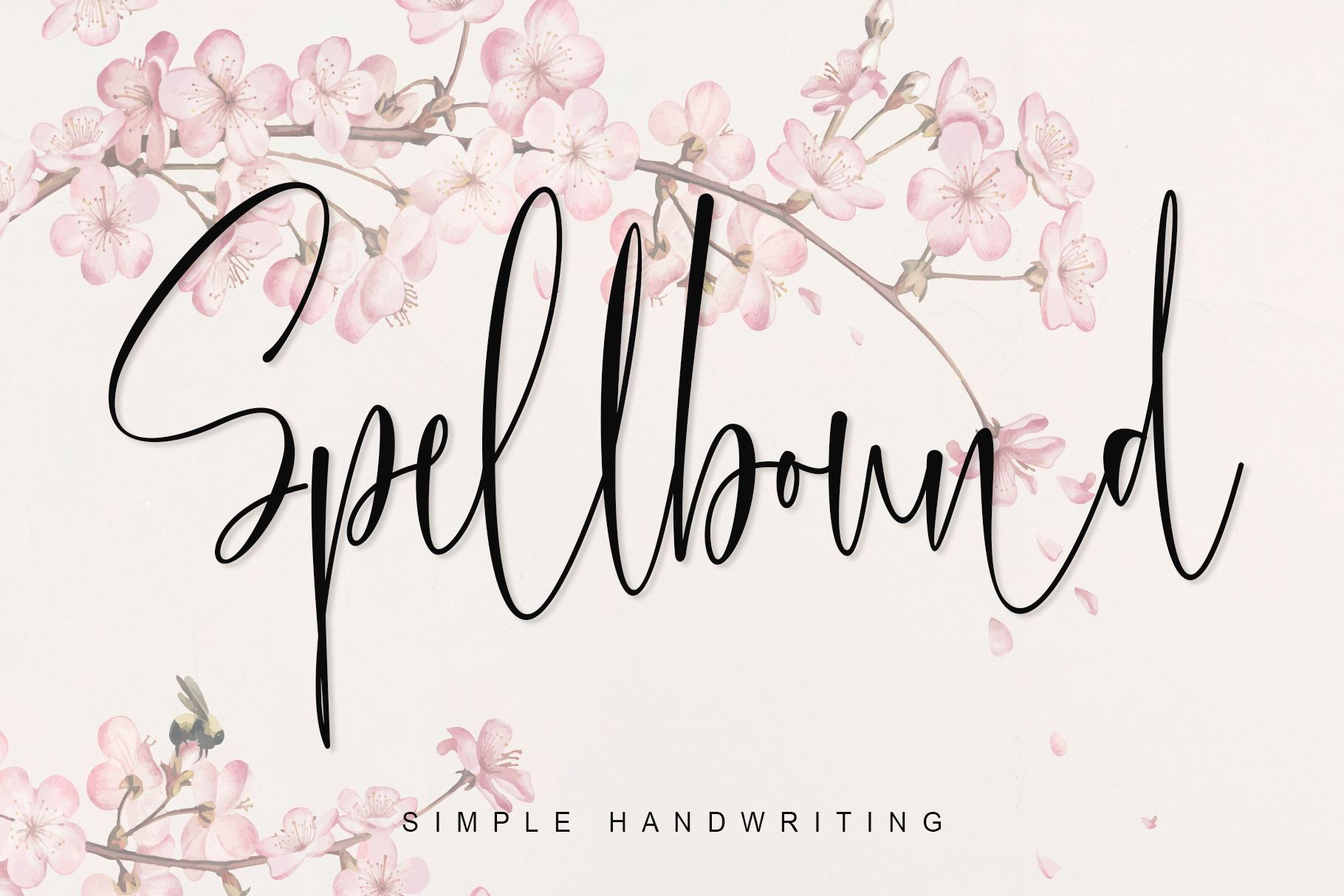
Spellbound Font Description
Spellbound is a beautiful light handwritten font with a unique feel and a stunning impact. It will add a luxury spark to any design project that you wish to create! This font is PUA encoded which means you can access all of the amazing glyphs and ligatures with ease!